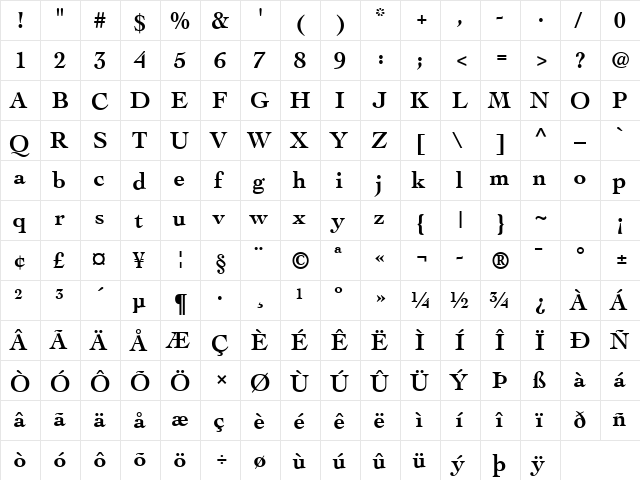
Cochin Bold
Design Context for Cochin Typeface
Cochin is a composed and adaptable typeface that performs quietly and consistently across a wide range of design contexts. Its bold stroke weight gives it real presence on the page.
Pro Tip: Pair Cochin with a font of contrasting weight or personality to build a more expressive typographic hierarchy.